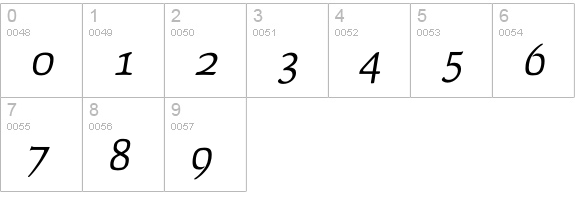
FaustLightItalicOldStyleFigsTab is a beautiful and elegant font that exudes a sense of sophistication and refinement. With its delicate italic style and charming old-style figures, this font is perfect for adding a touch of elegance to any design project. The flowing curves and subtle details of FaustLightItalicOldStyleFigsTab make it a versatile choice for a wide range of applications, from branding to editorial design. Best of all, FaustLightItalicOldStyleFigsTab is available for free download at FontsMarket.com. Whether you're a designer looking to elevate your work or a creative enthusiast in search of a unique font for your projects, FaustLightItalicOldStyleFigsTab is sure to impress with its timeless appeal and classic design. Download it today and add a touch of sophistication to your next project.